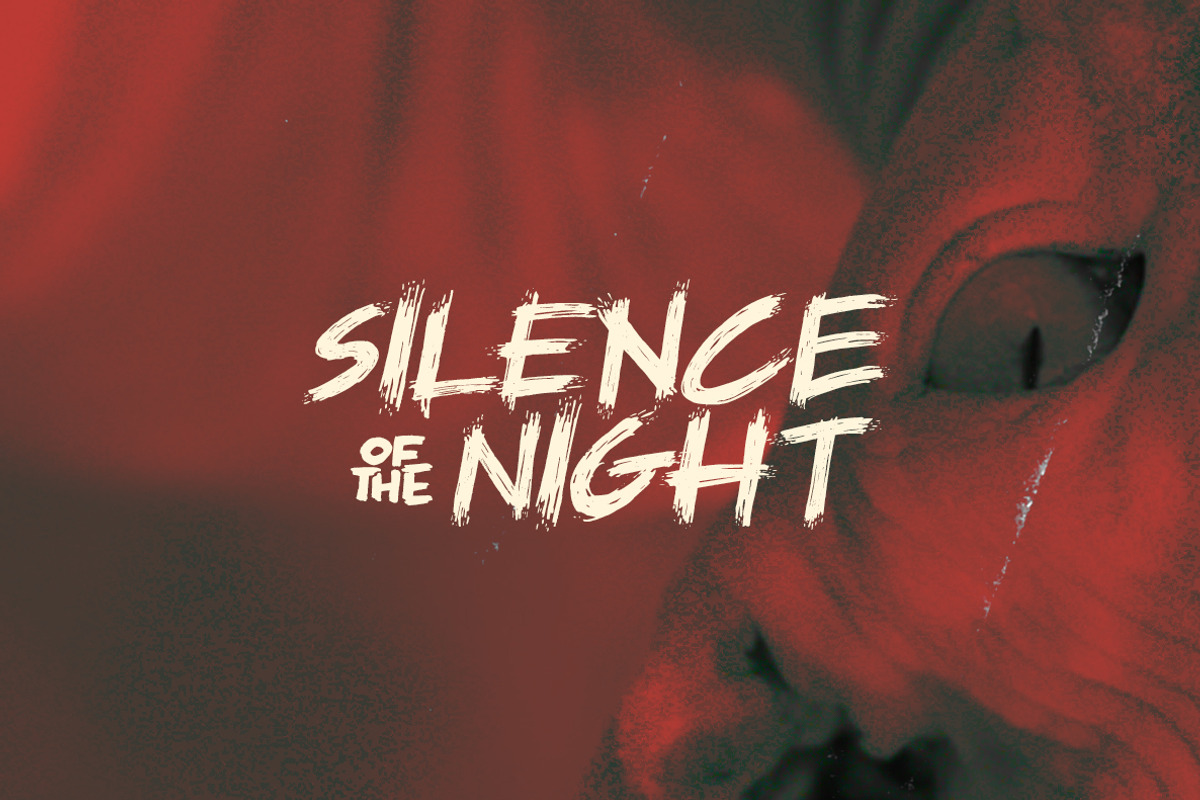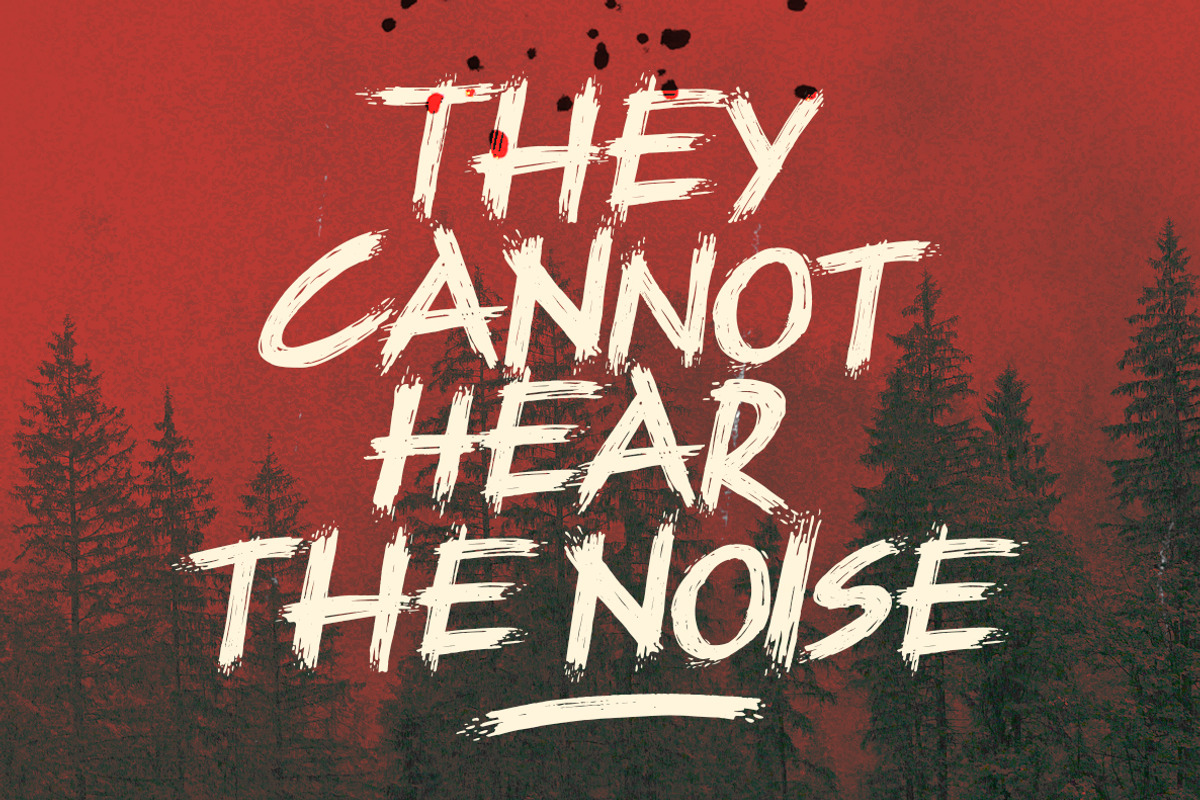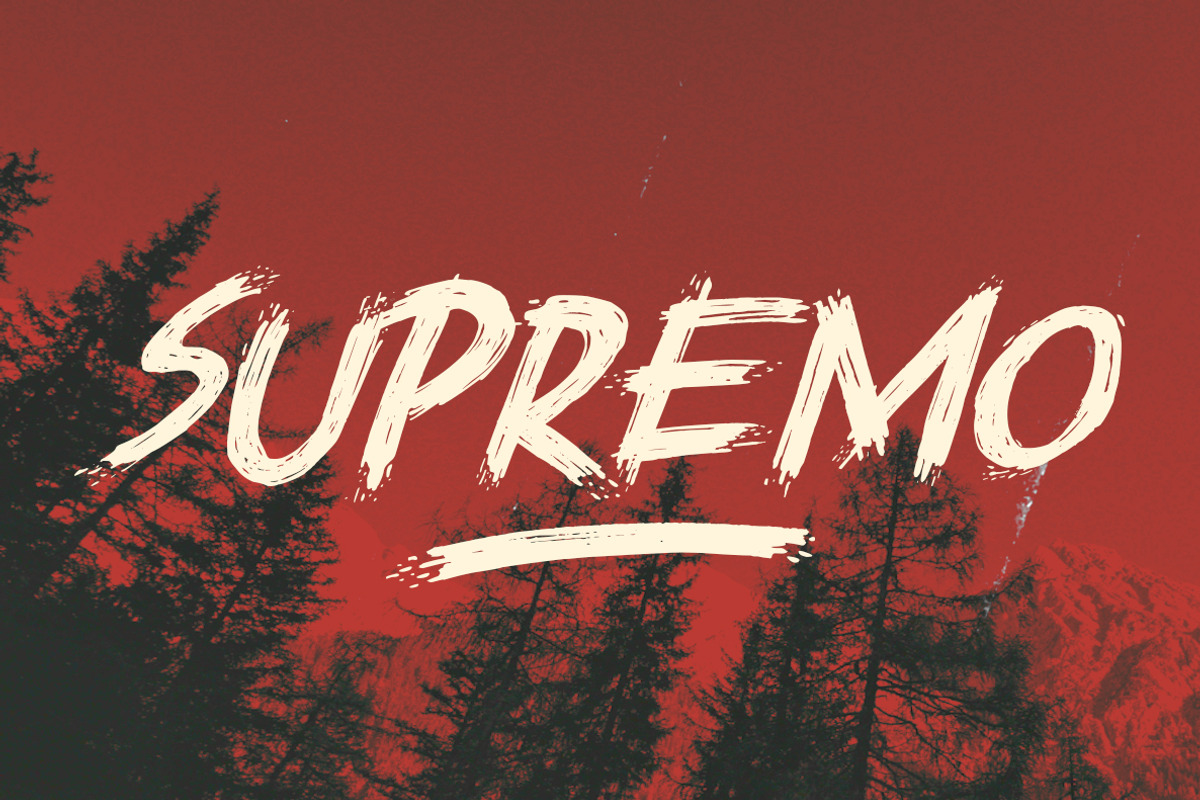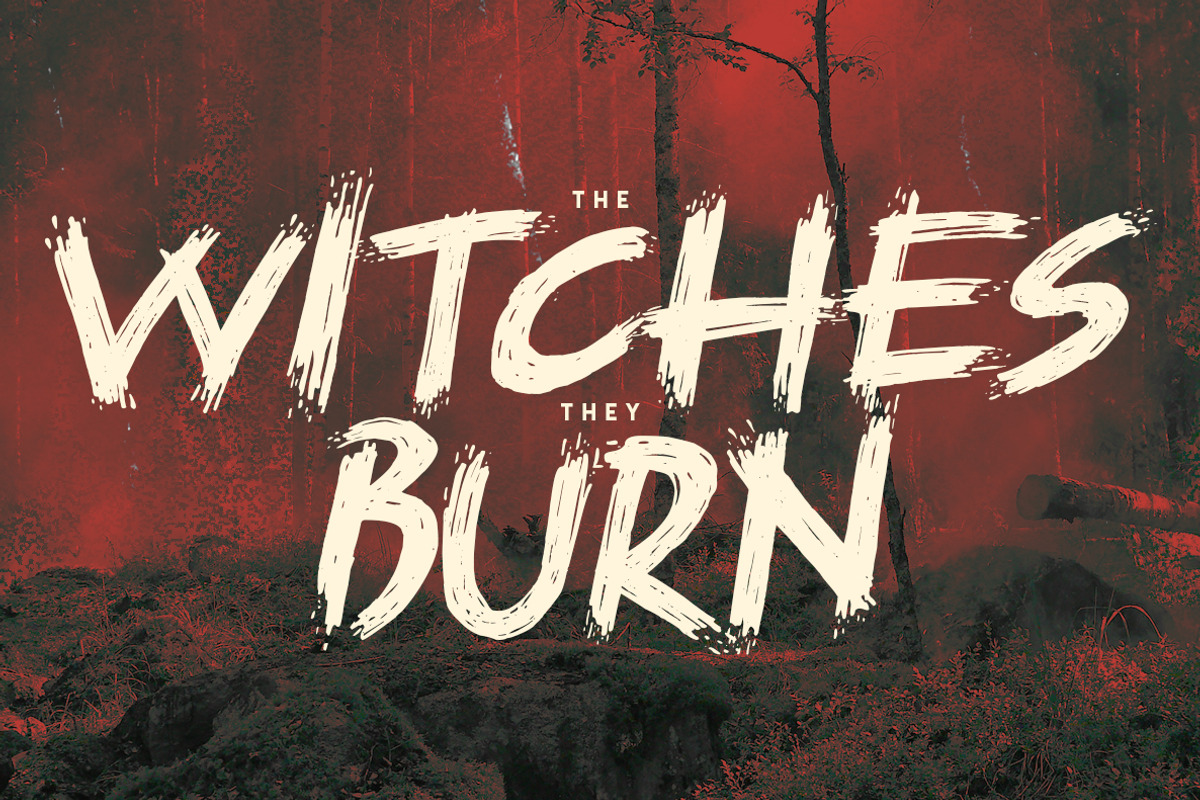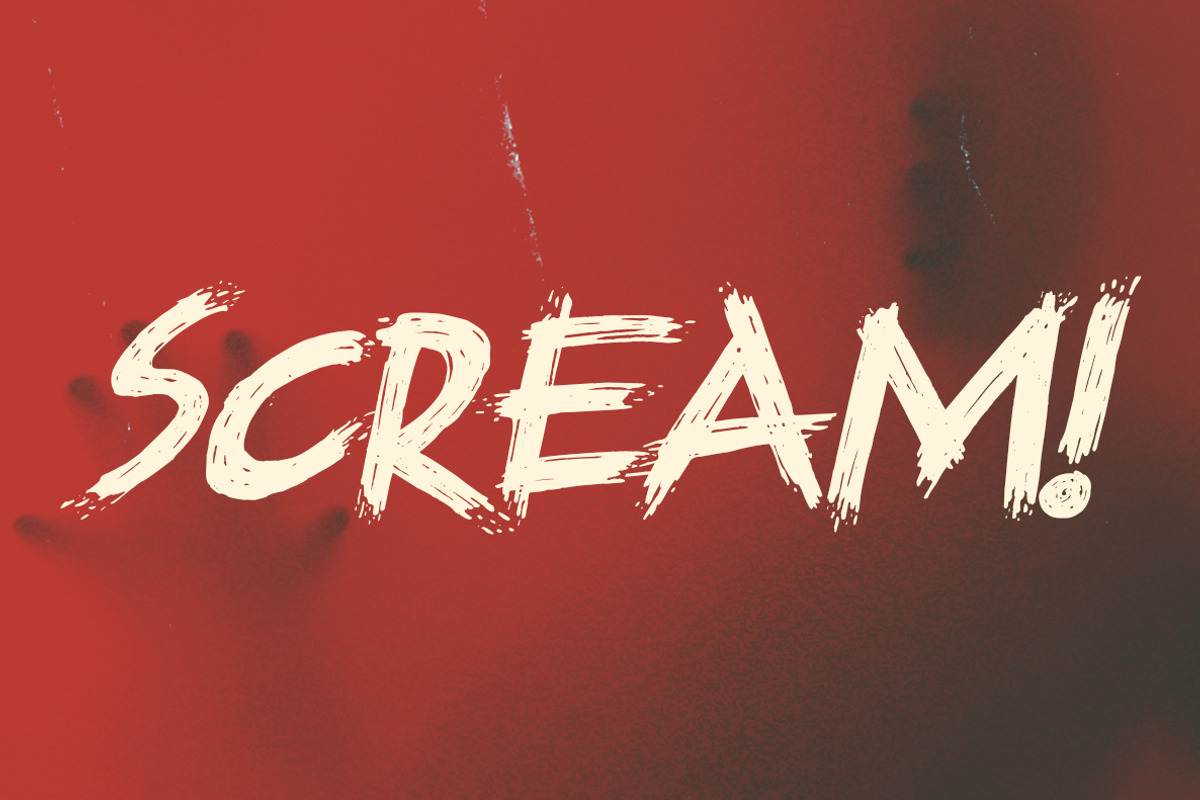
Supremo | Horror Font
The Supremo font is the perfect horror font this coming Halloween. It has a strong character that can grab someone's attention. Just mix and match the uppercase and lowercase letters to get the most natural handwritten effect of the font. You can even use it for branding, television, logo, packaging, band, videos, extreme designs, horror designs, you can do anything you want with this font. Get ready to trick or treat with your designs by using the Supremo font.
The font include accents for multilingual users, extra characters and swashes.
Level up the terror with the Supremo font!
- Just mix and match the uppercase and lowercase letters to get the most natural handwritten effect of the font.
- The font include accents for multilingual users, extra characters and swashes.
Supremo | Horror Font by Ryn Pojas fits naturally into Branding, posters, packaging, typography.